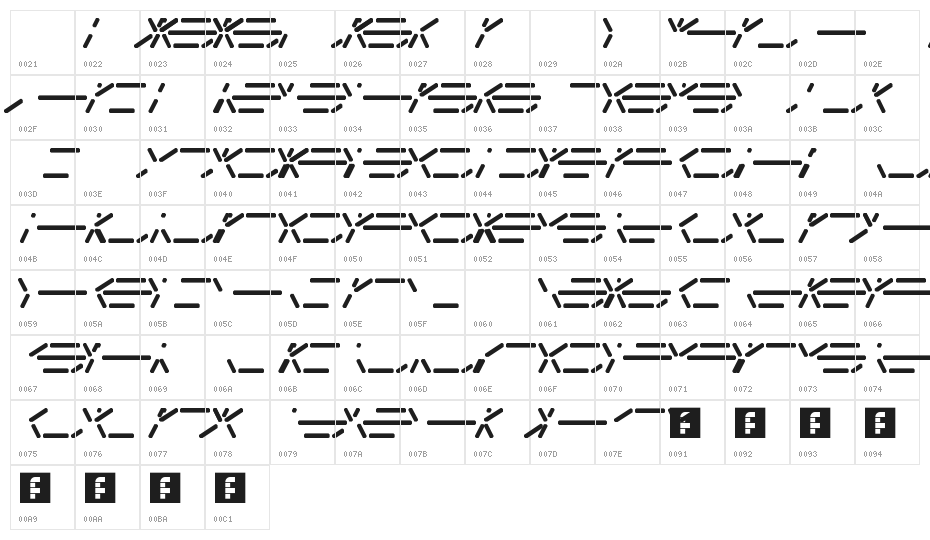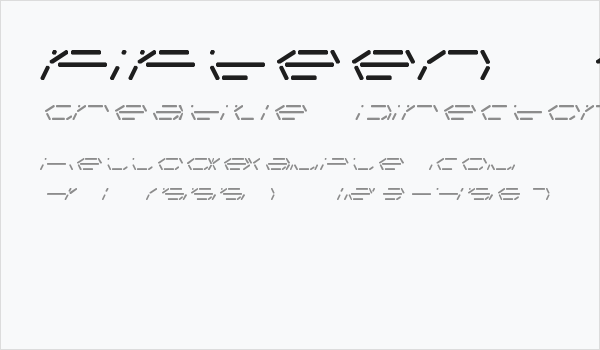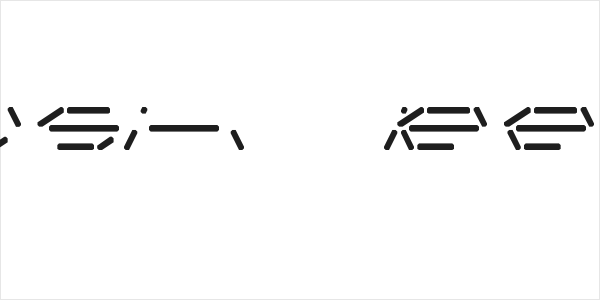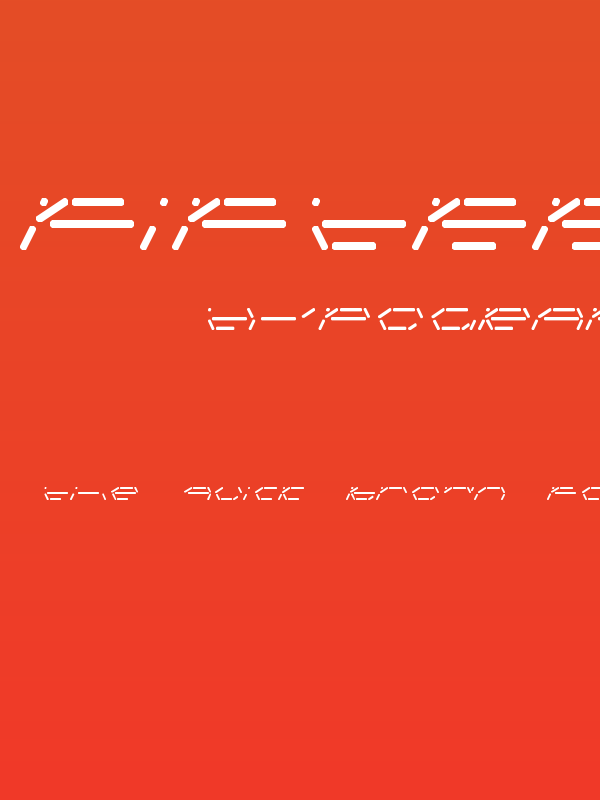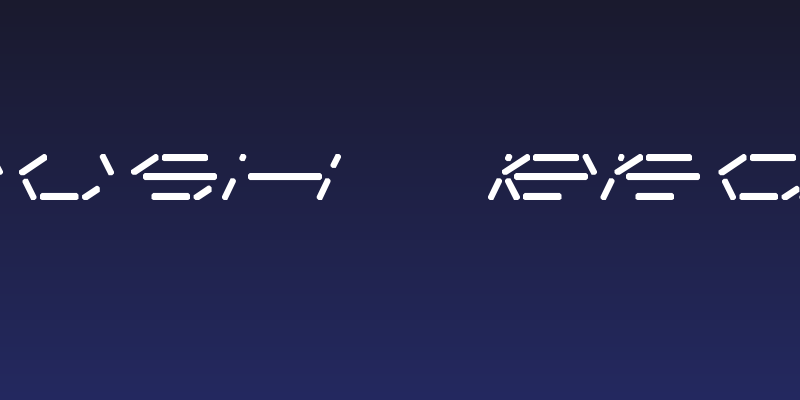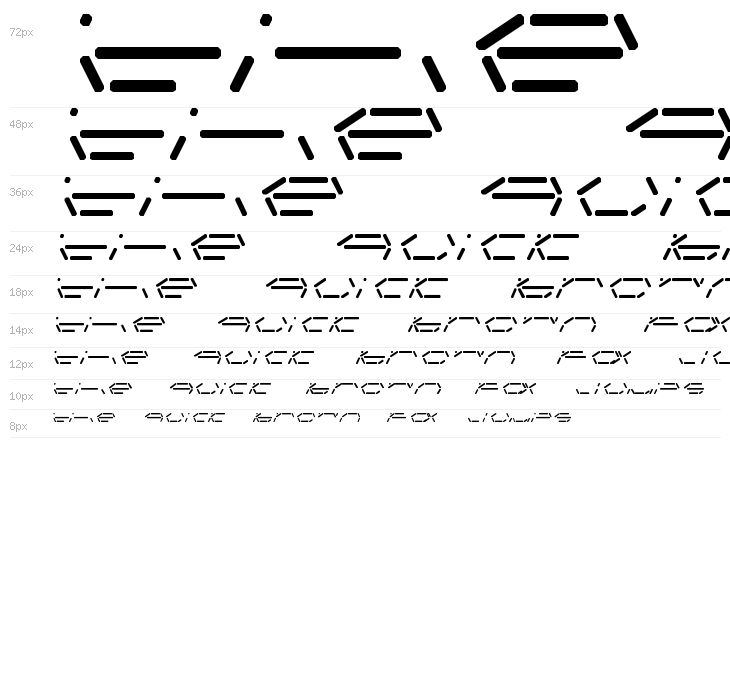
Fifteen Segment Rush Regular LDR Regular Font
Fifteen Segment Rush Regular LDR Regular Description
This font features a unique, segmented design reminiscent of digital displays or LED screens. Each character is constructed using a series of angular lines and segments, creating a futuristic and technical appearance. The geometric structure of the letters gives it a distinct, modern look that stands out in digital and tech-related contexts. The font maintains consistent spacing and alignment, ensuring readability despite its unconventional style. It is particularly suited for projects that require a digital or high-tech aesthetic, such as tech branding, digital interfaces, or sci-fi themed designs.
| Proposed Projects | Ideal for tech branding, digital interfaces, sci-fi themes, and modern display designs. |